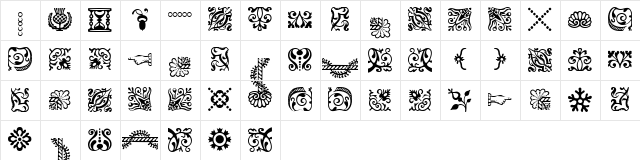
AdobeCaslonOrnaments is built around its visual character rather than neutral utility - its distinctive forms are designed to make an impression at display sizes.